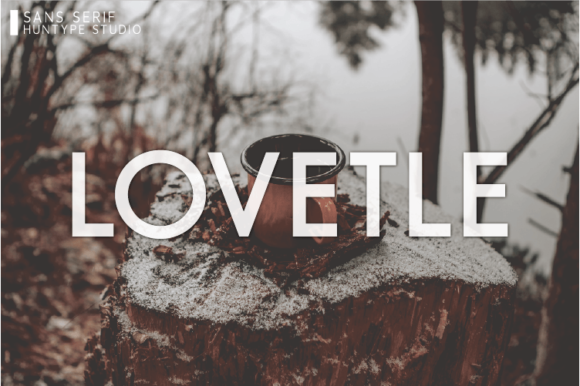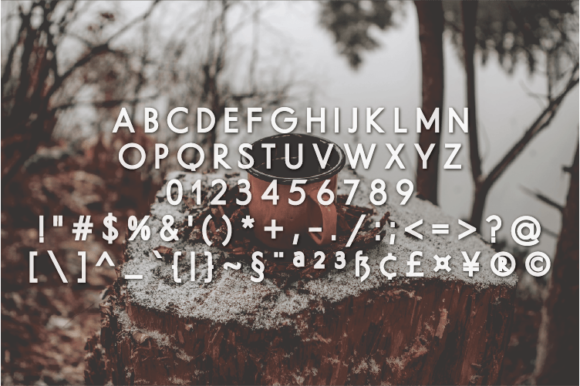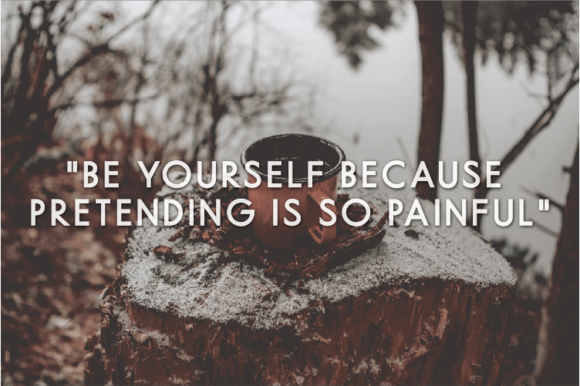
Lovetle
About Lovetle Font
Lovetle is a simple and versatile sans serif font. With smooth and clean lines, this font works beautifully for logos, branding, and web headings.